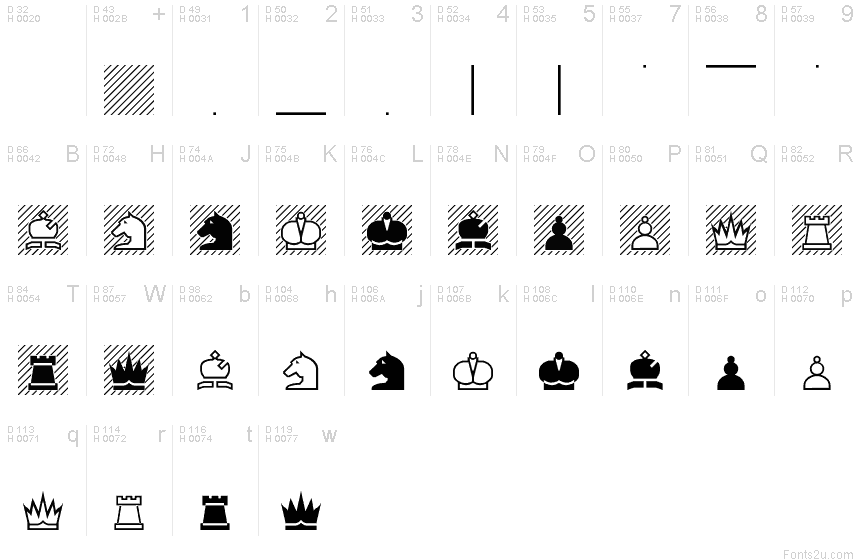
Chess Berlin is a free chess-themed dingbat font with familiar pawns, knights, bishops, and rooks rendered as crisp, emblematic icons. The collection mixes solid silhouettes with outlined pieces backed by diagonal hatching, offering two related treatments that feel bold, orderly, graphic, and unmistakably tied to the traditional board.
It suits both chess-club merchandise and editorial puzzle pages. On tournament posters, game packaging, and teaching materials, the repeated piece profiles make the subject instantly and consistently clear, and the contrast between filled icons and striped outline versions can turn notation, section markers, or decorative borders into part of the chess motif.
Chess Berlin